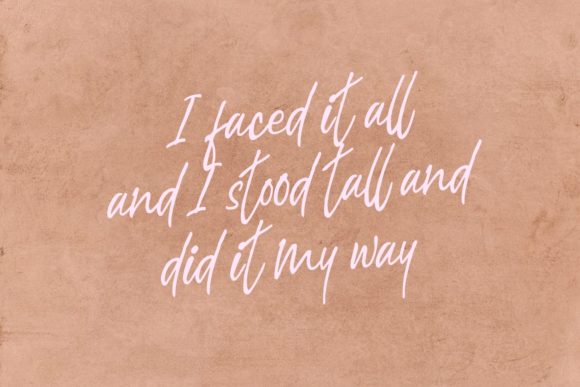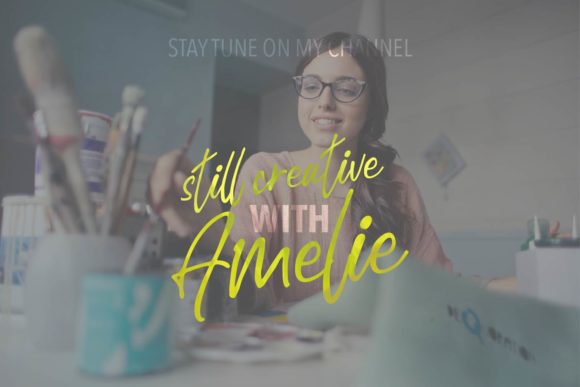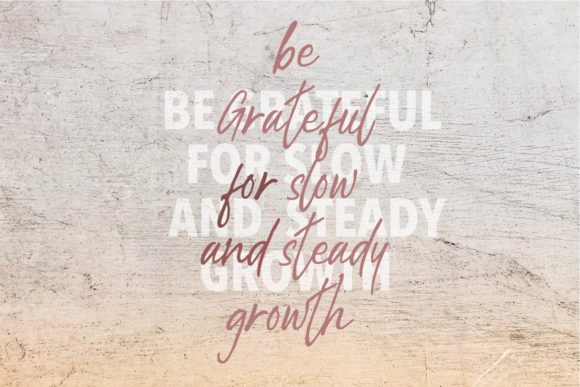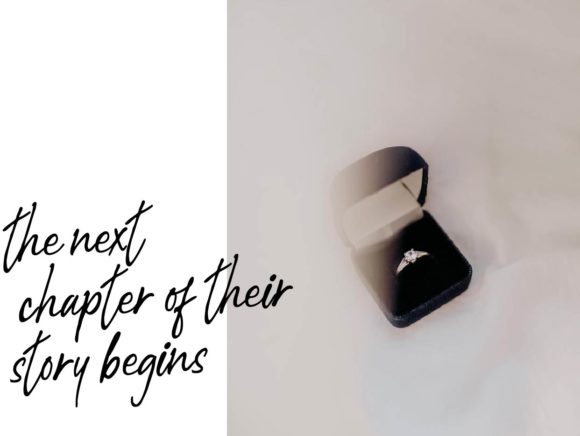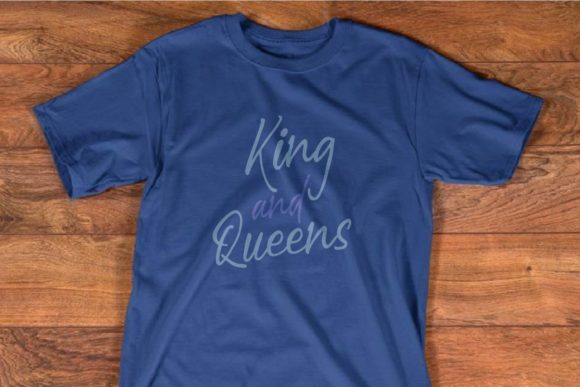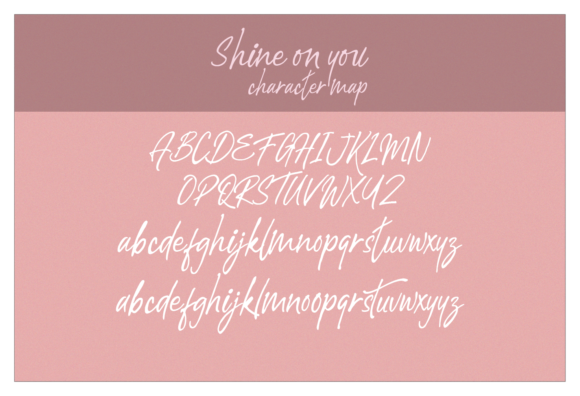
Introduction to Shine on You Font
Shine on You is a sweet and friendly handwritten font.
Its natural and unique style makes it incredibly fitting for a large pool of designs The only limit is your imagination.